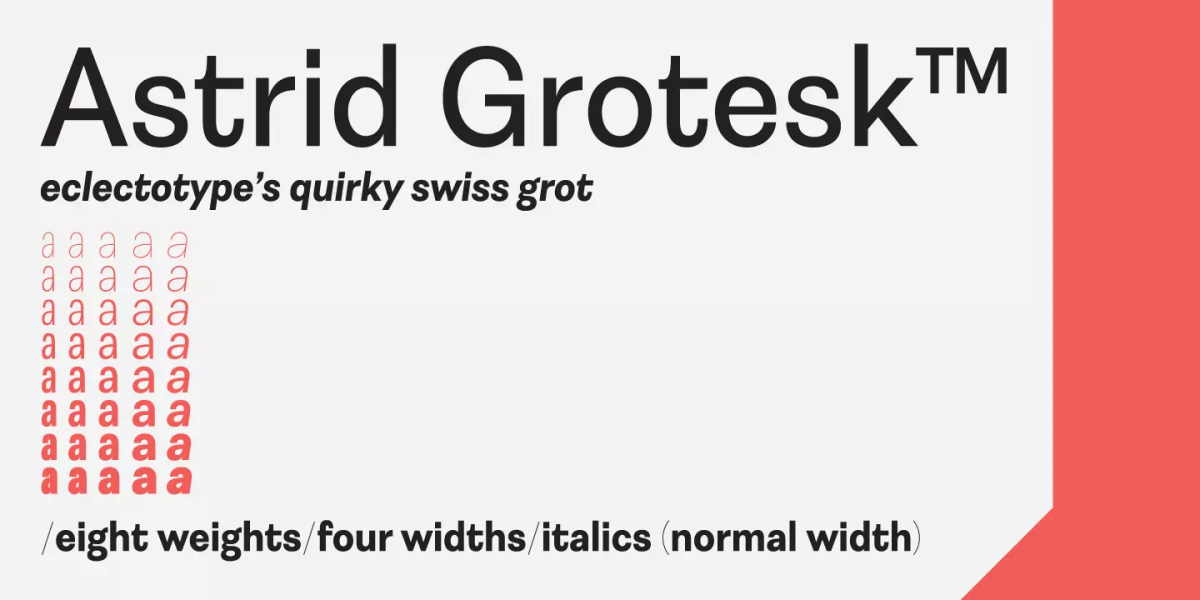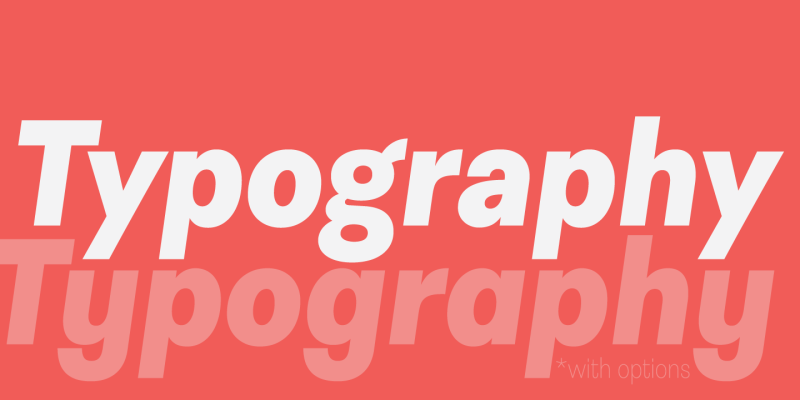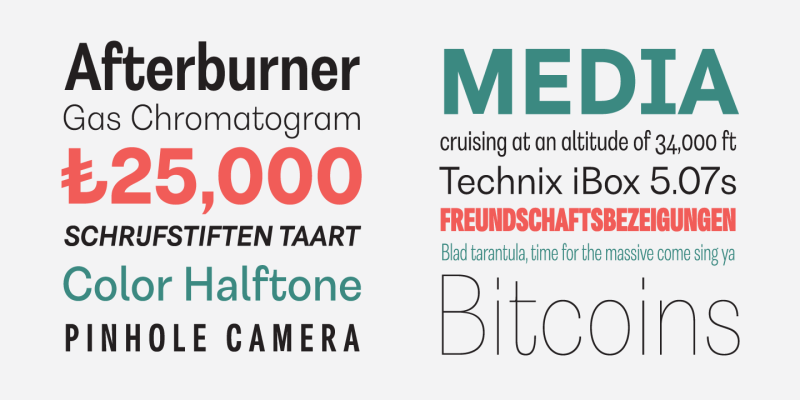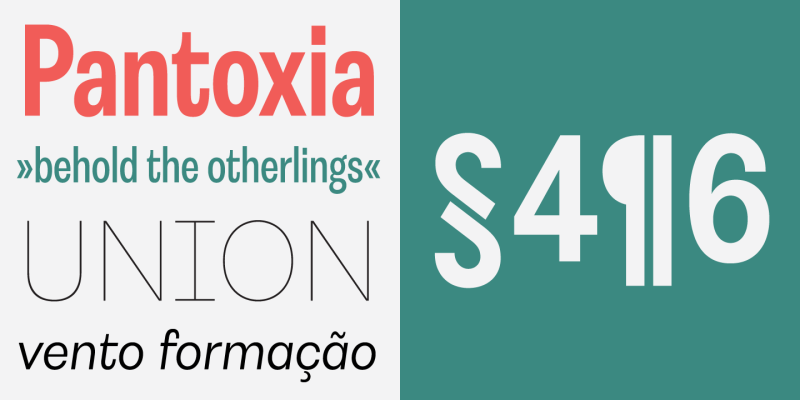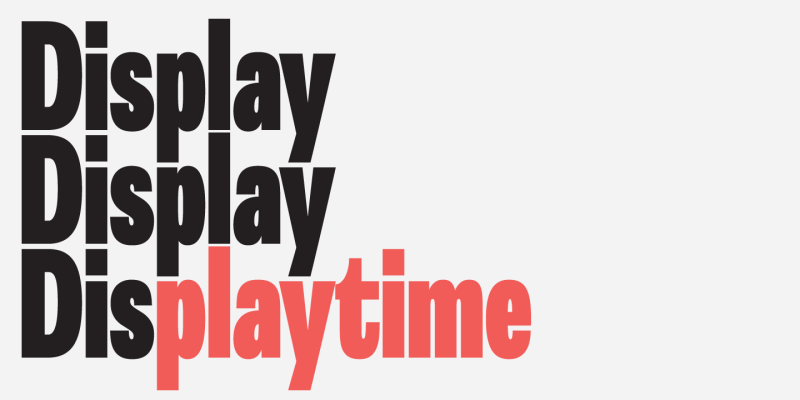
Astrid Grotesk Font Family
Astrid Grotesk is a normalized version of Schizotype Grotesk. Normalized; not neutralized. Where many neo-grotesks appear cold with their harsh neutrality, Astrid has a warmth, eminating from its (for want of a better word) clunkiness. With the latest update, it becomes a true workhorse, with a range of widths and italics for the normal widths.
Astrid Grotesk, while being clearly a neo-grotesk in appearance, has a personality all of its own. Standout characters include the f and t, and the default binocular g, unusual in neo-grotesks. And the right angled terminals on c, e and s. Stylistic sets offer up alternate forms of a, g, y, I, @, dutch IJ, german eszett and l. A full complement of numerals is included: proportional and tabular, lining and oldstyle, plus fractions, subscript and superscript. Note also that the tabular figures are duplexed across weights – very useful when highlighting specific entries in tables.
The tabular figures feature also substitutes in fixed width (across all weights) comma and period, so your decimals line up perfectly always. Lastly, case sensitive forms of certain glyphs are included for all-cap settings. This typeface will be useful for corporate identities and branding work. It’s spaced more for text settings in the normal width, and gets more display-optimized as the width decreases, but with careful tracking, all styles can sing at display sizes. Bored of those other Swiss style typefaces?
Astrid Grotesk could be the face you need to breathe new life into your designs. Coupled with Schizotype Grotesk, its more eccentric cousin, you’ve got an unorthodox branding system ready to use straight out of the box.
Where Astrid Grotesk Font Family works best
Astrid Grotesk Font Family stays legible at small sizes, which makes it a strong choice for navigation, buttons and dashboards in web design and app interfaces.
Clean sans serifs like Astrid Grotesk Font Family are the default language of SaaS, fintech and product branding.